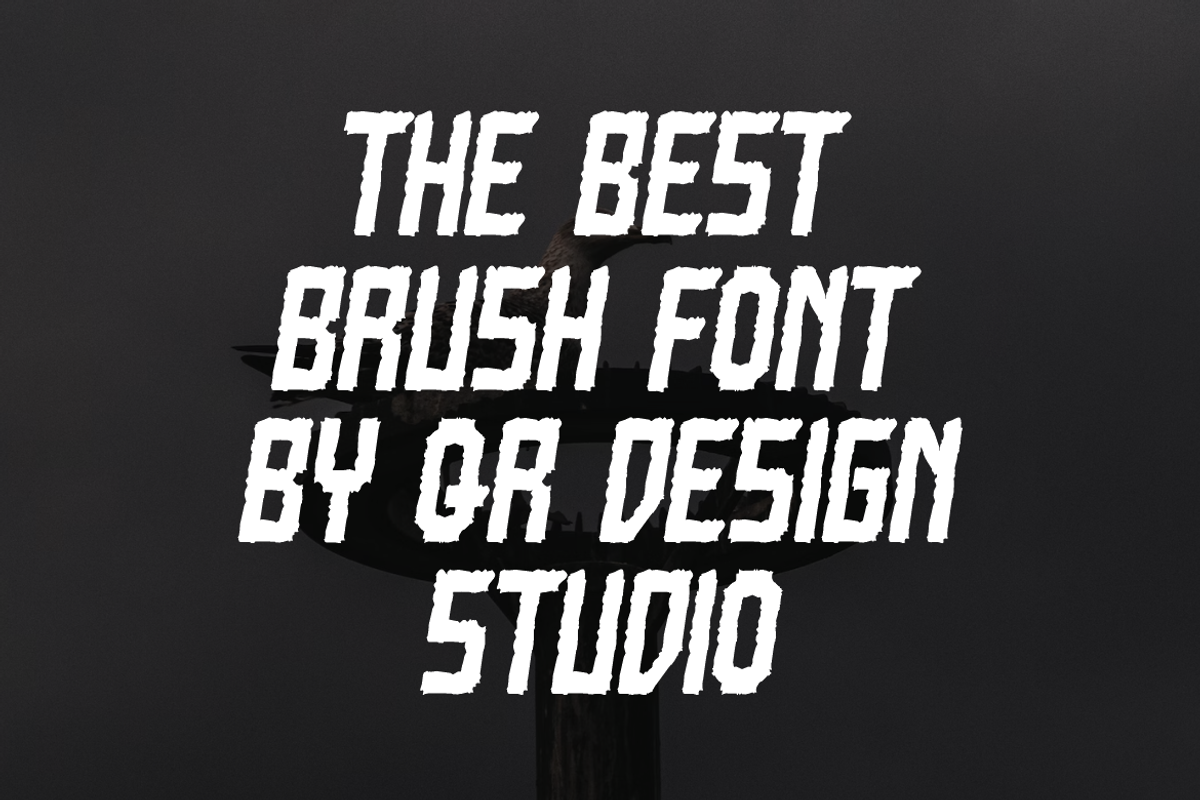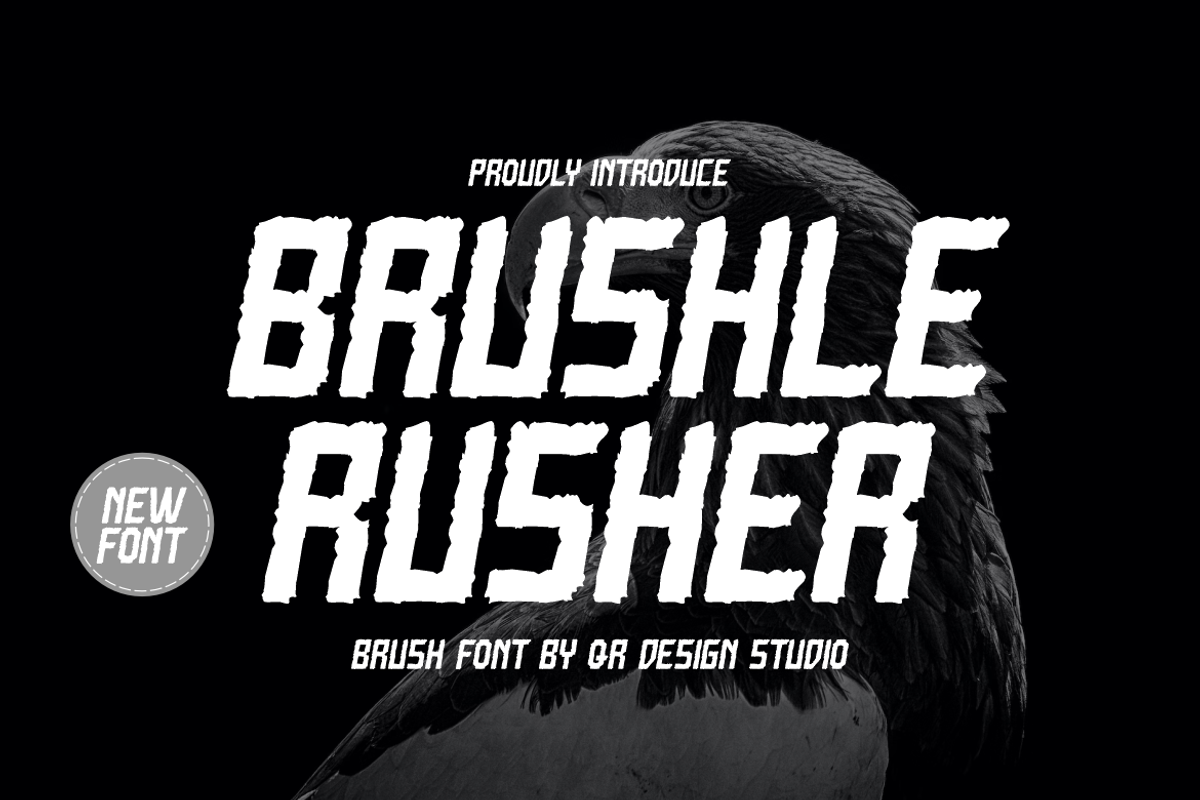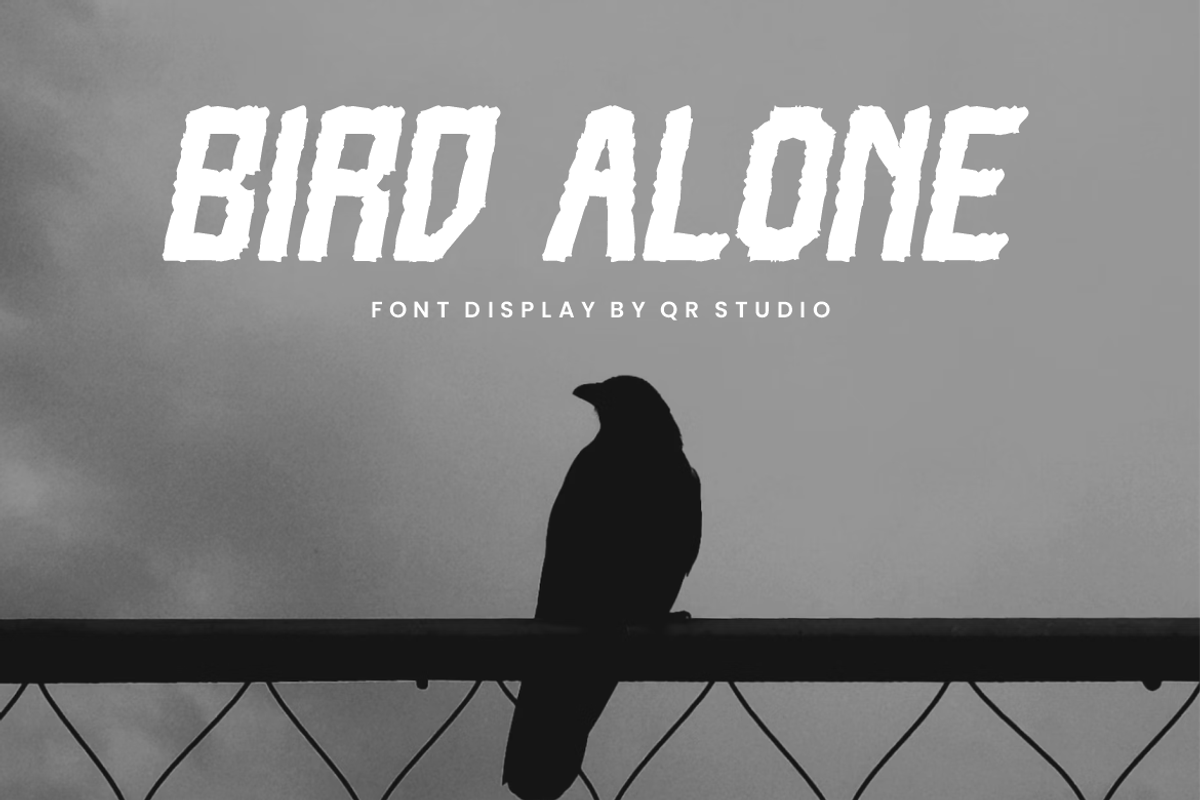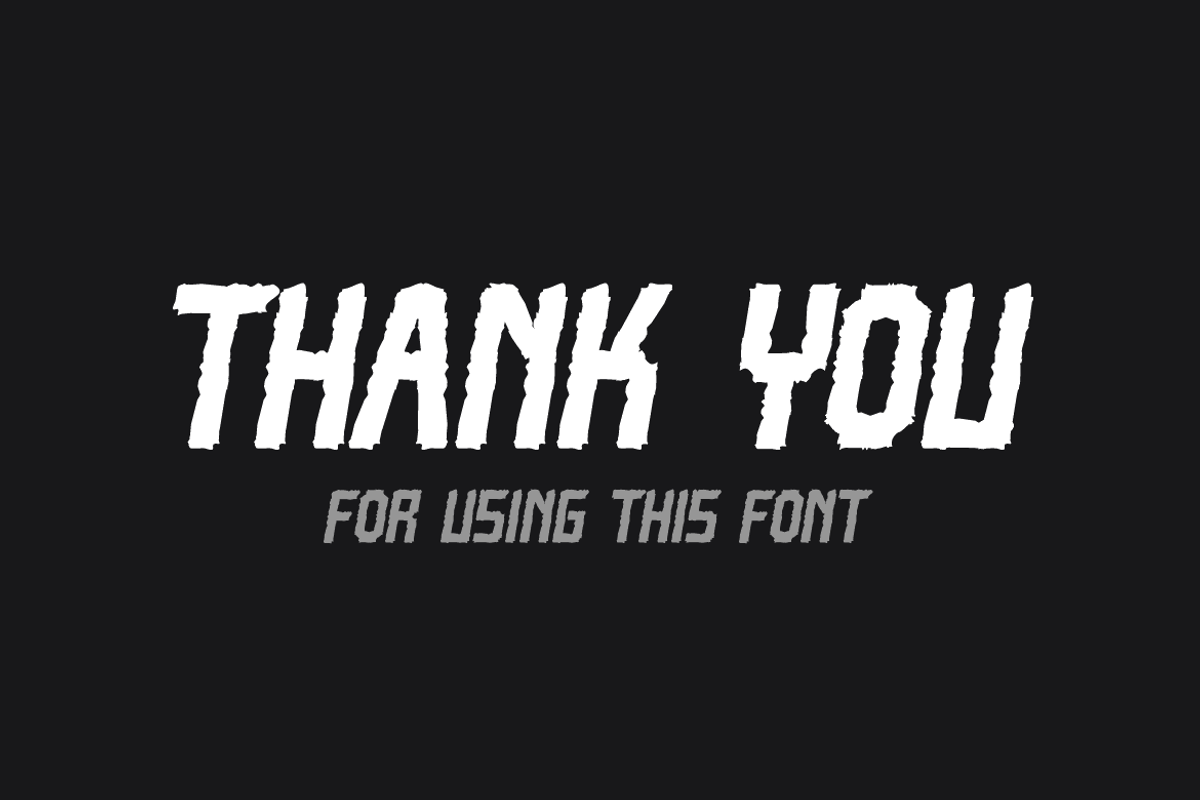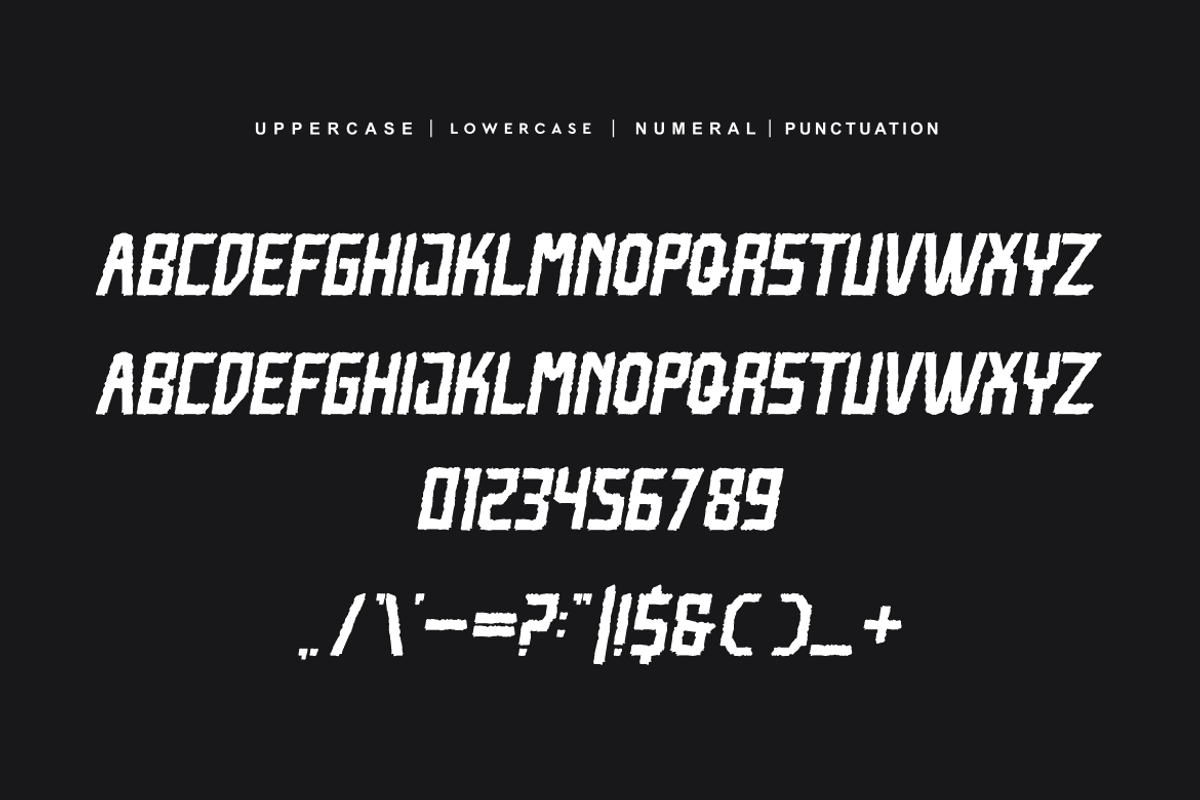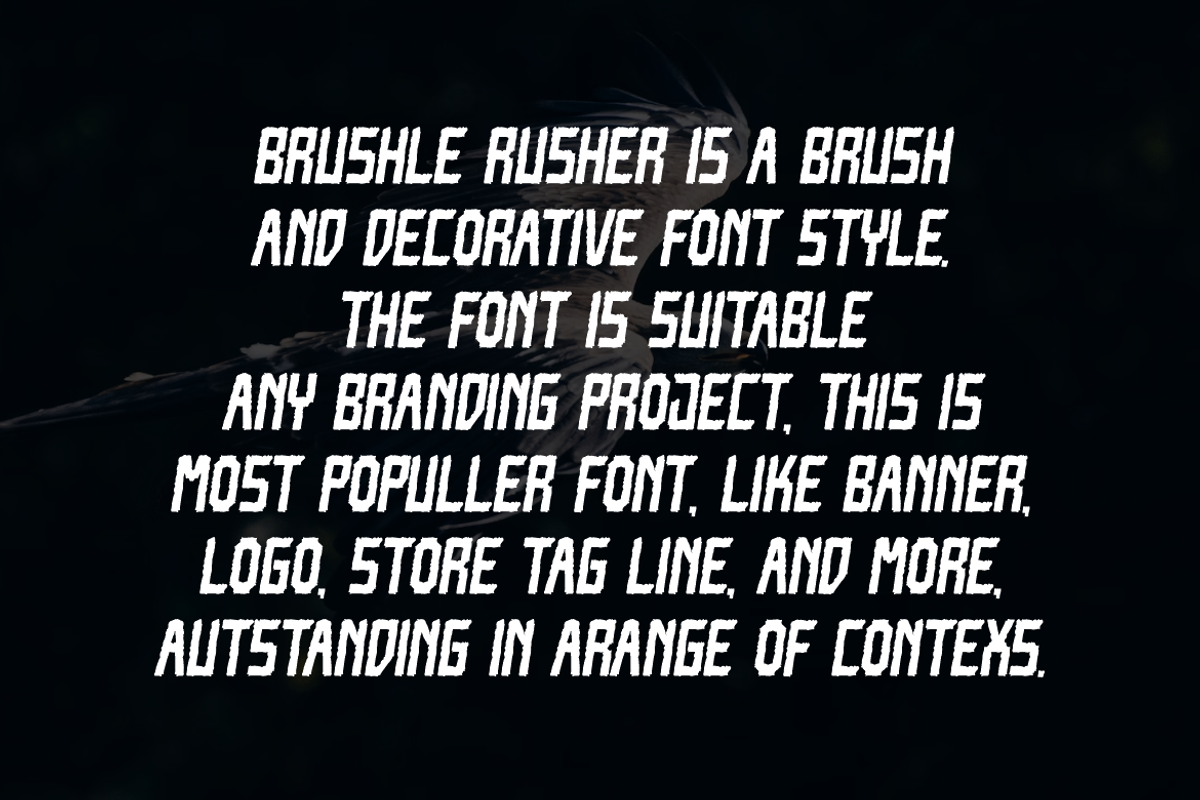
Brushle Rusher
Brushle Rusher Font is a brush and authentic display font. The font is suitable for any branding project like poster, logo, sport, and many more. Outstanding in a wide range of contexts.